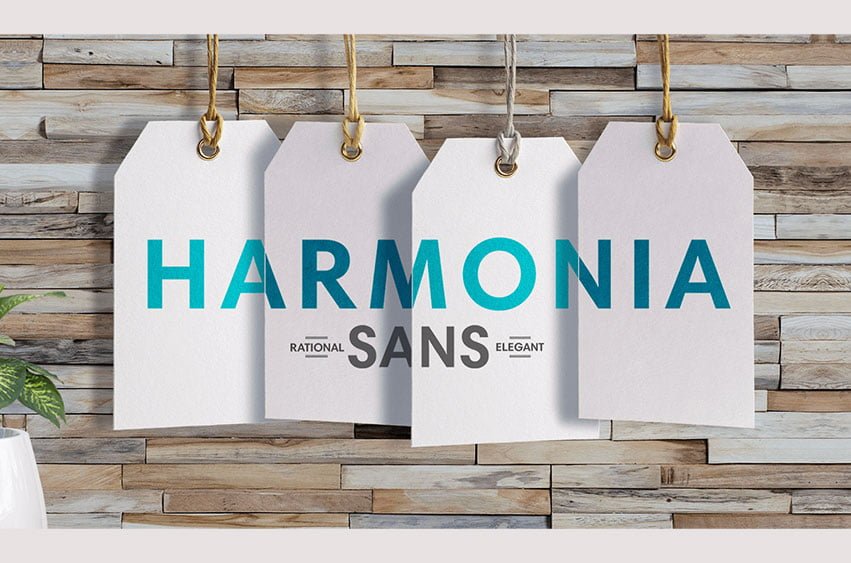
Harmonia Font is a very clean font family of modern times. This font family is considered as a geometric sans-serif keen typeface. Jim Wasco designed this font in 2010 for Monotype. And Monotype Corporation has released it for the first time in type design market on 19 March 2012. Having marvelous legibility and keen features, the Harmonia Sans is now in the list of most refined typefaces. That unique font is available in five weights. And contains condensed and monospaced versions as well. So, Alongside impeccable diminished styles and outstanding clarity, this geometric font is perfect for any kind of designing activity.